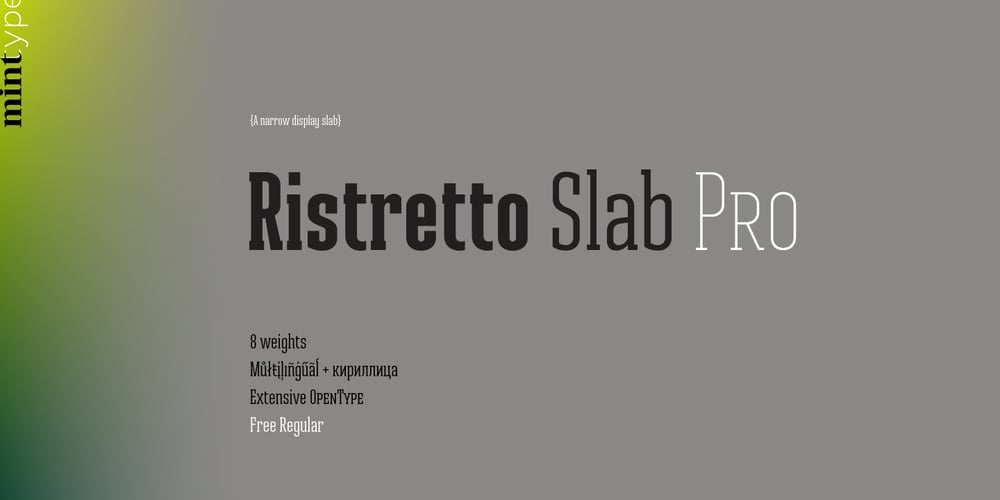
Ristretto Slab Pro Font Family was designed by Andriy Konstantynov and published by Mint Type. Ristretto Slab Pro contains 8 styles and family package options. Ristretto Slab Pro is a slab-serif companion to Ristretto Pro. It’s an extremely narrow display slab-serif font family with asymmetrical serifs available in 8 weights. It features rich language support, 6 sets of figures and small caps.